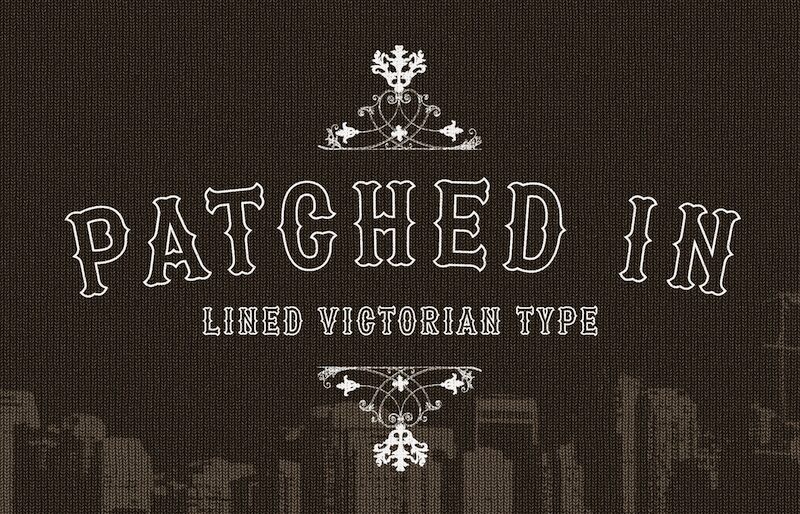
Patched In PERSONAL USE Thin
Introducing Patched In Thin, a stunning display font designed by Mans Greback. With its intricate outlined Victorian style, this semi-light and condensed font is perfect for a variety of projects that require a touch of elegance and sophistication. Whether you're designing a vintage-inspired logo, creating eye-catching headlines for your website or blog, or adding some flair to your print designs, Patched In Thin is an excellent choice. Its unique character will make your project stand out while maintaining readability and legibility. Try it today and add some vintage charm to your next design!